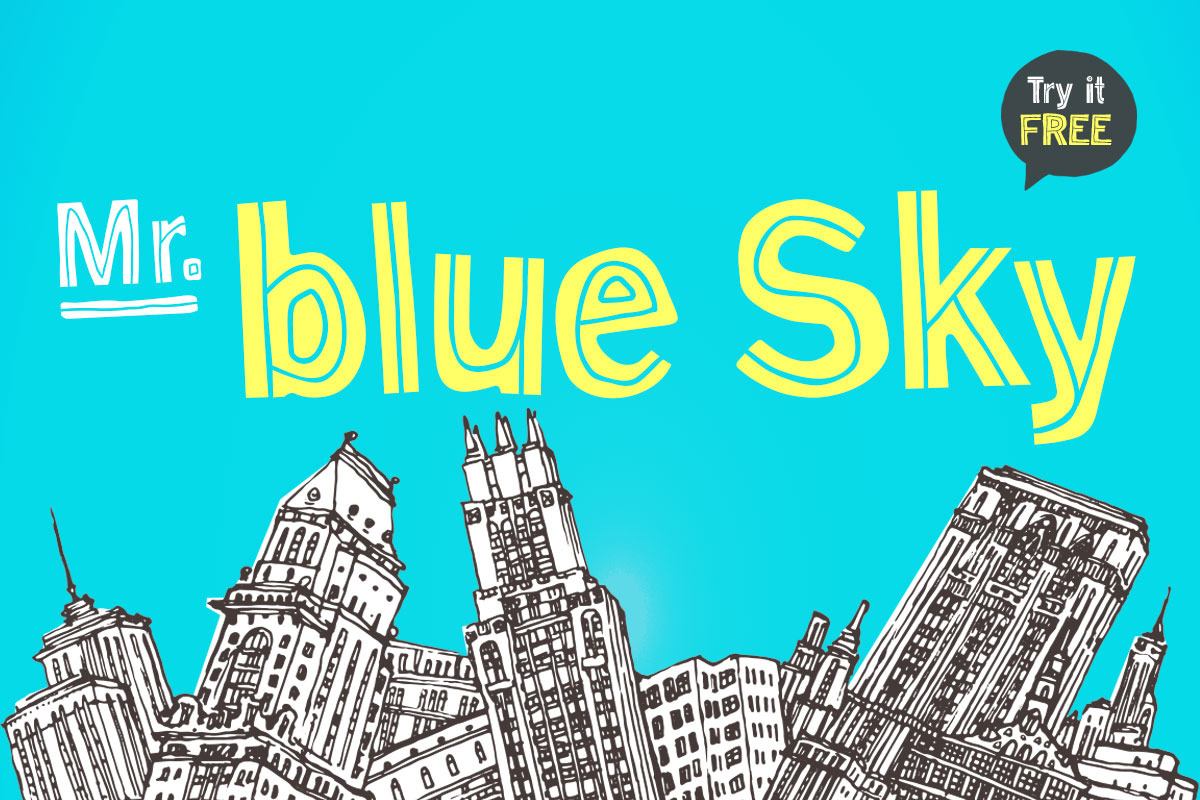
Display font Mr. Blue Sky Handmade Free Download
Mr. Blue Sky Handmade Font Free Download
Please note, to use this font for commercial purposes, you must purchase the full version. Mr. Blue Sky is a charming and playful handmade font that brings a friendly and relaxed vibe to your designs. With its organic, hand-drawn style, this font is perfect for logos, branding, invitations, and creative projects that need a personal, authentic touch. Whether you're designing for a casual brand, a fun event, or a whimsical campaign, Mr. Blue Sky adds a warm and inviting feel to your work. Test it out and enjoy free download access for personal use. Experience the joyful and creative style of Mr. Blue Sky Handmade Font Free Download before purchasing the commercial license. Add a hand-crafted, cheerful touch to your designs with Mr. Blue Sky.